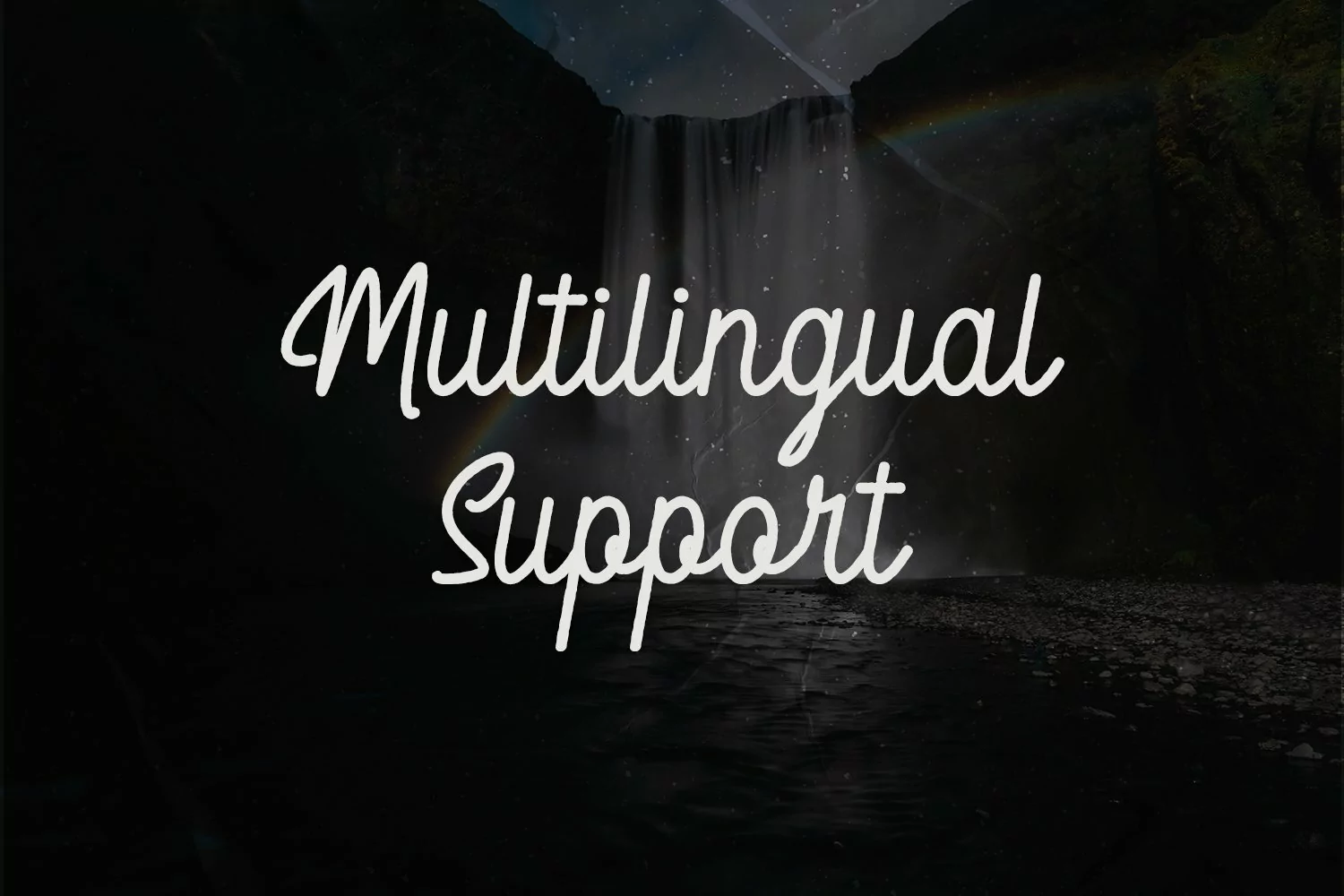
Wailer Monoline Script Font
Give your designs an authentic handcrafted feel. Wailer monoline script font, is perfectly suited to packaging, invitations, quotes, t-shirts, labels, posters, typography quotes, magazine or book cover, website header, clothing, packaging design Etc.